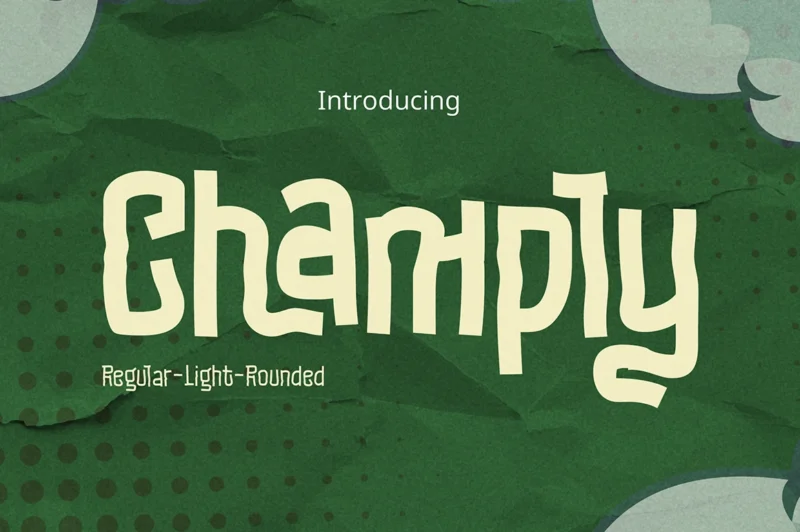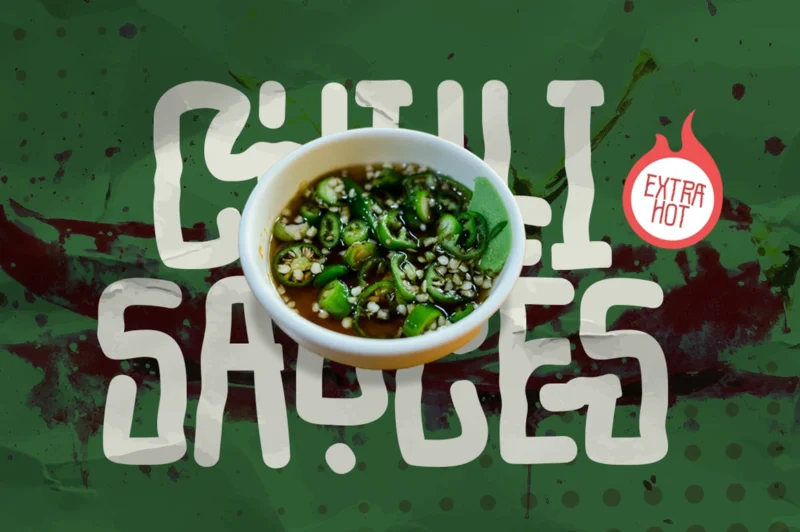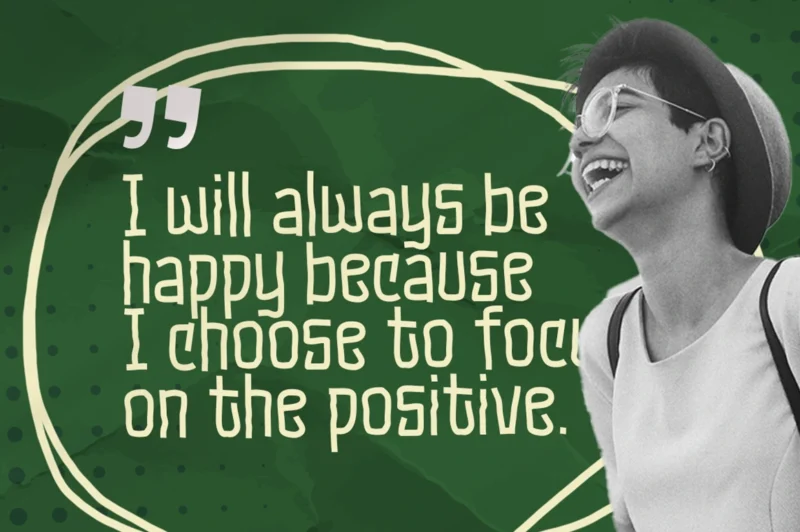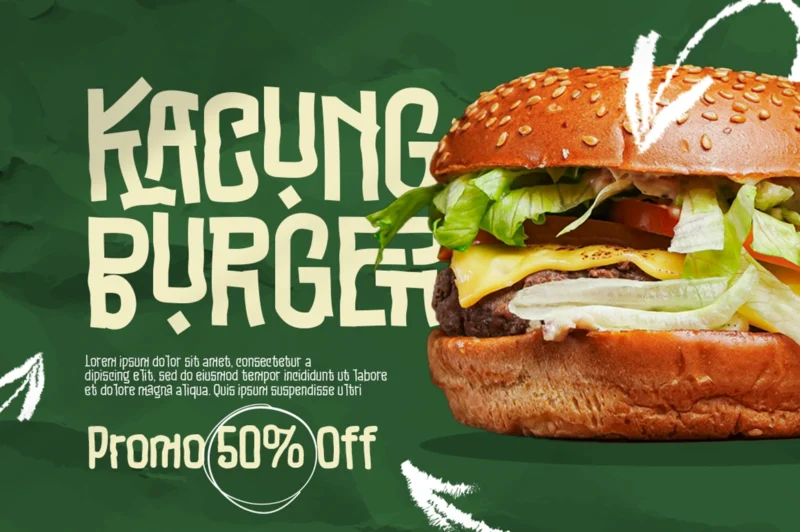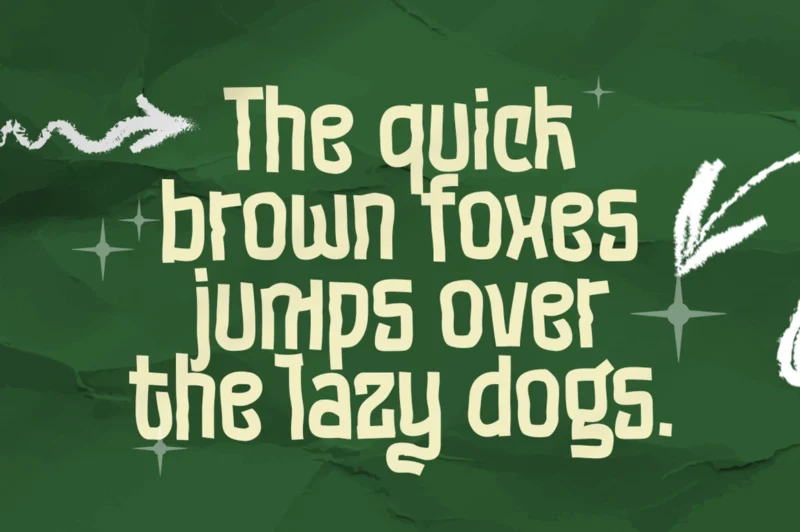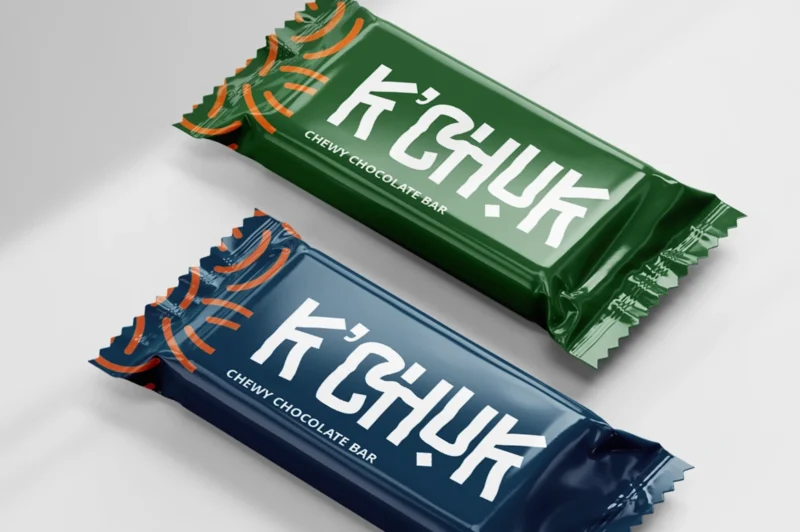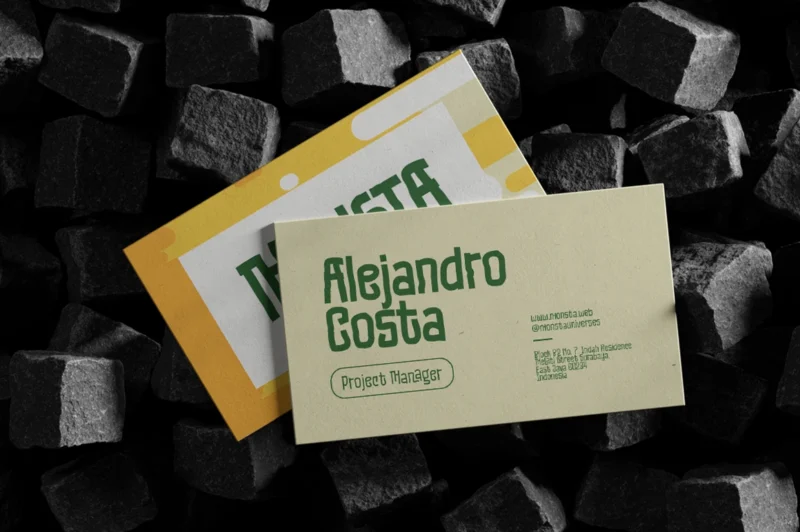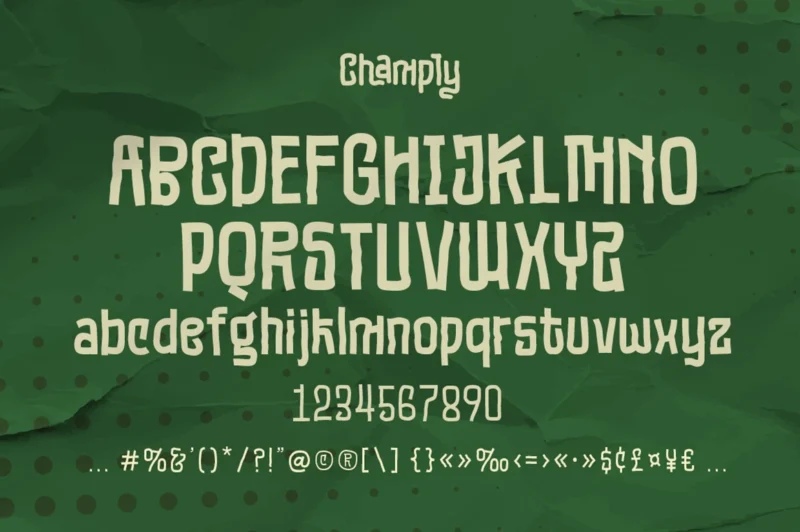
Champly is a modern and uniquely styled typeface that blends creativity with readability. Designed with a distinctive character, it brings a fresh and playful personality to any design while maintaining a clean and professional look. This font comes in three versatile styles—Regular, Light, and Rounded—giving you the flexibility to adapt it across different visual needs. Whether you want a bold statement or a softer, more friendly tone, Champly delivers effortlessly. Perfect for headers, body text, and logotypes, Champly stands out in branding, editorial layouts, and digital content. Its balanced structure and stylish curves make it both eye-catching and highly legible, making it an excellent choice for designers who want something modern yet approachable.
Features:
- Modern and Uniquely Styled Typeface
- Uppercase and Lowercase
- Creative Ligatures & Alternates
- Basic Latin Glyphs
- Three Distinctive Style
- Numeral and Punctuation
- Currencies
- Multilingual Support